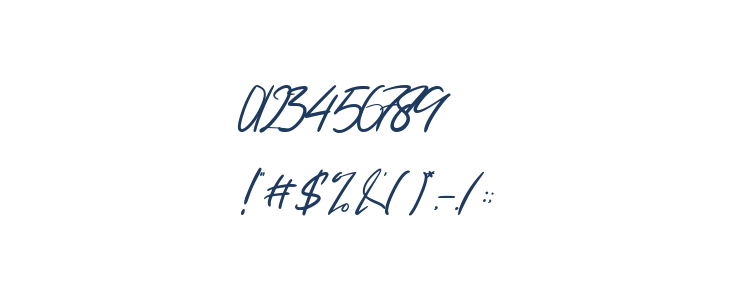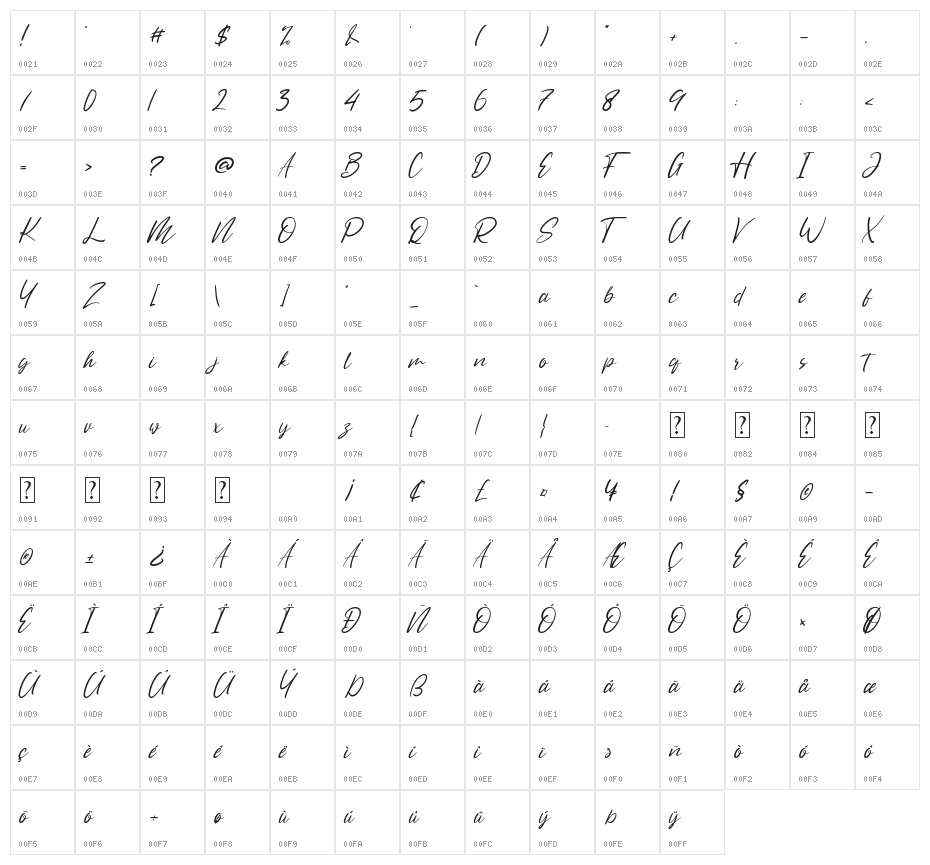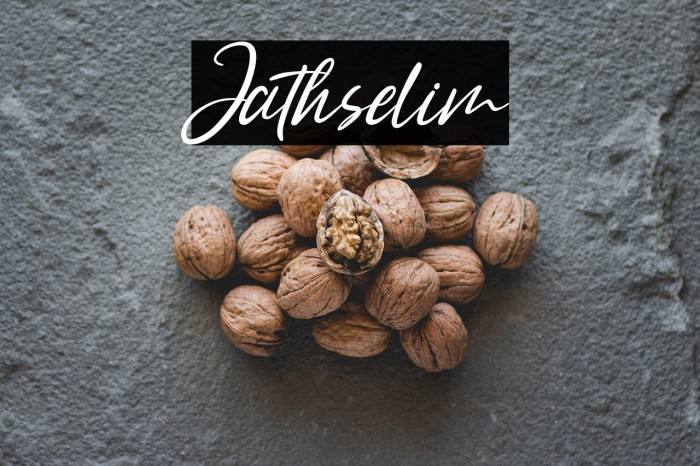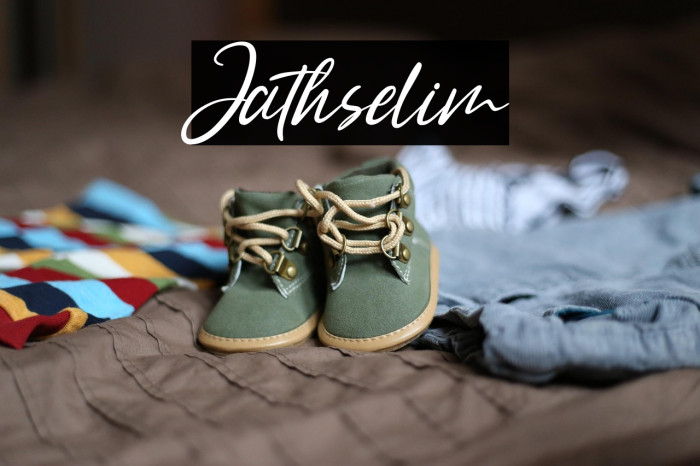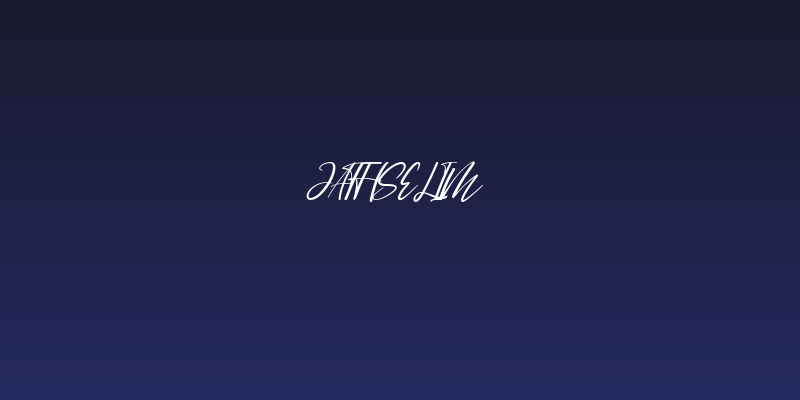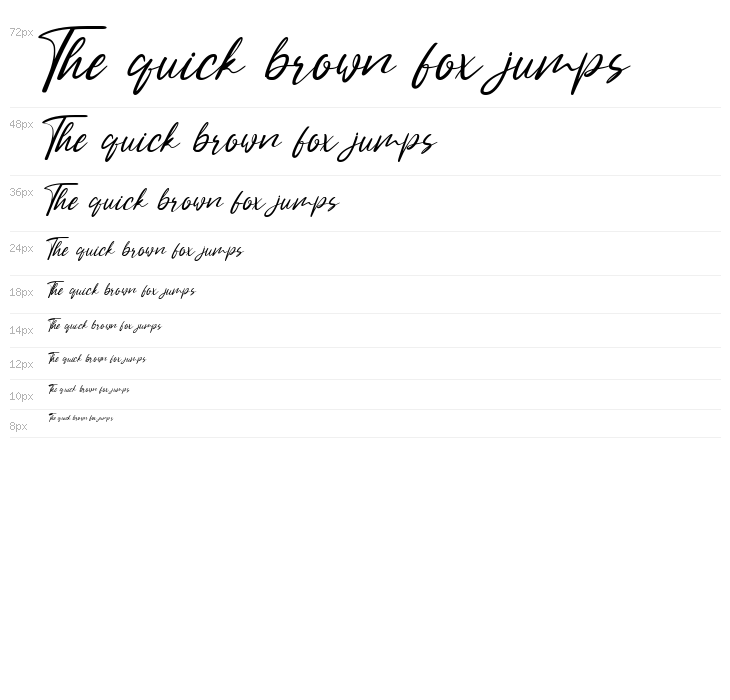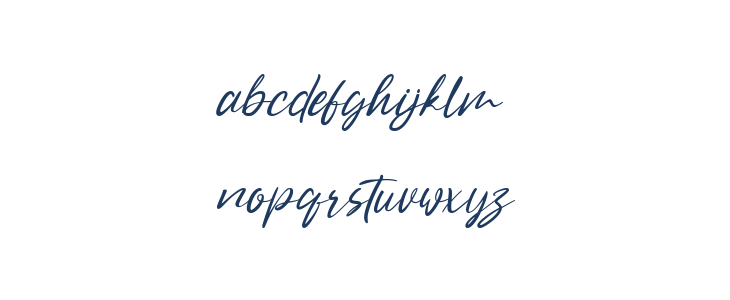
Jathselim Font
Jathselim Description
This font features a dynamic and fluid script style, characterized by its elegant and flowing letterforms. The strokes are smooth and connected, giving it a handwritten appearance. The uppercase letters are bold and expressive, while the lowercase letters maintain a consistent flow, enhancing readability. The numerals and special characters are designed to match the overall aesthetic, with a playful yet sophisticated touch. This font exudes a sense of creativity and personal expression, making it suitable for a variety of design applications.
A dynamic and fluid script font with elegant, flowing letterforms from Regular fonts.
- Font: Jathselim